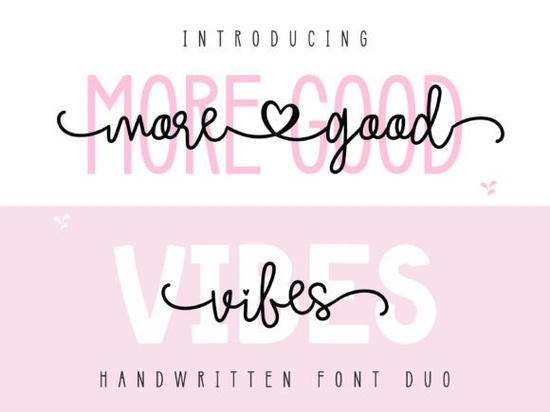
If you're looking for a font that brings warmth and personality to your designs, More Good Vibes Duo Font is a thoughtful choice. It’s a handwritten-style duo featuring both a flowing script and a clean sans-serif that works well across digital and print projects. Whether you’re designing greeting cards, social media graphics, or branding elements for a small business, this pair adds a friendly, inviting touch.
What makes More Good Vibes Duo special?
The font comes in two complementary styles: a delicate script with swash details and a minimalist sans-serif that balances the design. The script version has natural flow and subtle flourishes, making it perfect for quotes, invitations, or personal branding. The sans-serif partner offers clarity and modern contrast, ideal for headings or supporting text.
It’s not just about looks it’s also practical. You can use both fonts together or separately, depending on your project needs. The combination feels cohesive but flexible, which is great if you’re creating consistent branding across multiple platforms.
Where can you use this font?
- Print-on-demand items like mugs, T-shirts, and tote bags
- Social media posts with positive messages or motivational quotes
- Greeting cards for birthdays, baby showers, or thank-you notes
- Small business branding such as logos, packaging, or website headers
- Craft projects including scrapbooking, stickers, and digital planners
Because it’s hand-drawn in feel but still legible, it strikes a nice balance between casual charm and professional polish. That makes it a go-to option when you want something personal without sacrificing readability.
How does it compare to other similar fonts?
If you’ve explored similar options like Simple House Font, Amastay Font, or Tranquilo Monoline Boho Font, you’ll notice that More Good Vibes stands out with its dual structure and balanced pairing. Unlike some scripts that are too ornate for everyday use, this duo remains usable in larger blocks of text while still feeling expressive.
For those who enjoy clean yet warm aesthetics, Amsterdam Signature Font shares a similar vibe, but More Good Vibes includes more versatility through its companion sans-serif. And if you’re drawn to minimalism with a hint of playfulness, Tail Font offers a comparable style but lacks the full script-sans duo setup.
Each of these fonts has its own character, but what sets More Good Vibes apart is how naturally it fits into creative workflows. No need to overthink pairing it’s designed to work together from the start.
Tip: Use the script font for titles or key phrases, and the sans-serif for body text or subtitles. This keeps your layout clear and visually balanced.
You can also experiment with layering effects like a light shadow or color overlay to add depth, especially in digital designs meant for web or social media.
Final thoughts
For creatives who value approachable design with a personal touch, More Good Vibes Duo Font delivers consistency and charm. It’s not flashy, but it’s reliable. If you’re building a brand around kindness, positivity, or handmade aesthetics, this font supports that tone naturally.